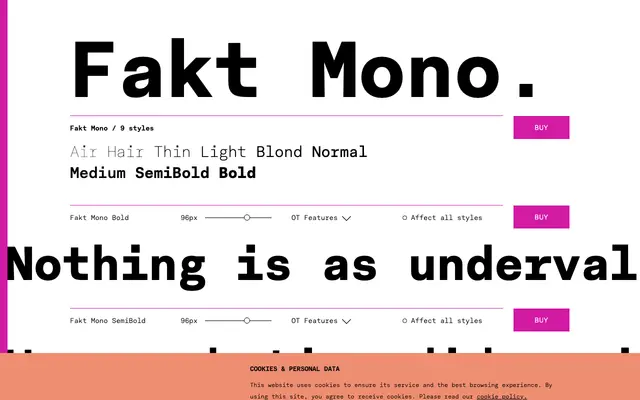
Fakt Mono
A nine-weight monospaced extension of the Fakt grotesque superfamily, designed by Thomas Thiemich and released in 2019.
Derived from the Fakt sans-serif superfamily, this monospaced companion applies fixed-width proportions to the same clean grotesque forms across nine weights from Air to Bold, with matching italics throughout. The weight range leans heavily into the lighter end, omitting Black on legibility grounds but including the near-invisible Air. OpenType features cover multiple figure sets, fractions, superiors and inferiors, case-sensitive punctuation, stylistic alternates for a wide range of characters, and comprehensive Latin Extended coverage across Western, Central and Eastern European languages.
A monospaced variant of the Fakt sans-serif superfamily, retaining its grotesque character while applying fixed-width proportions throughout. Classified as mono due to its equal-width spacing as its defining structural feature.